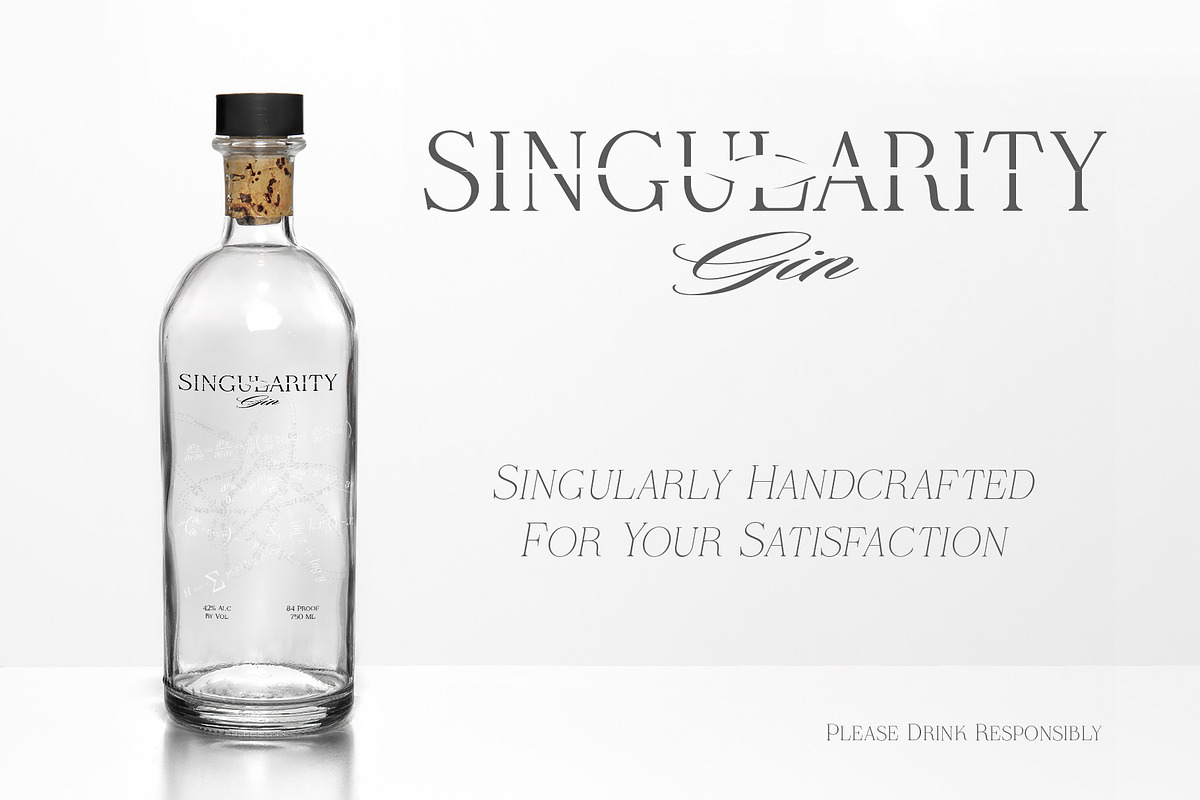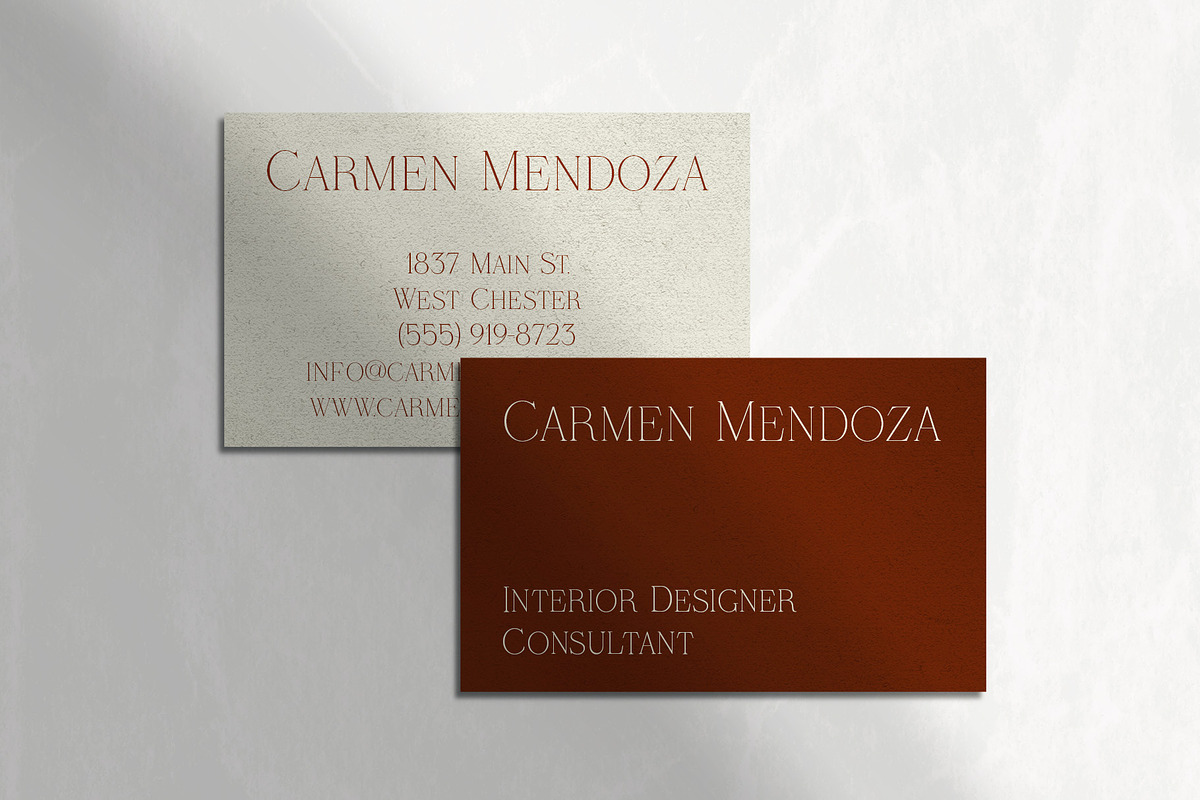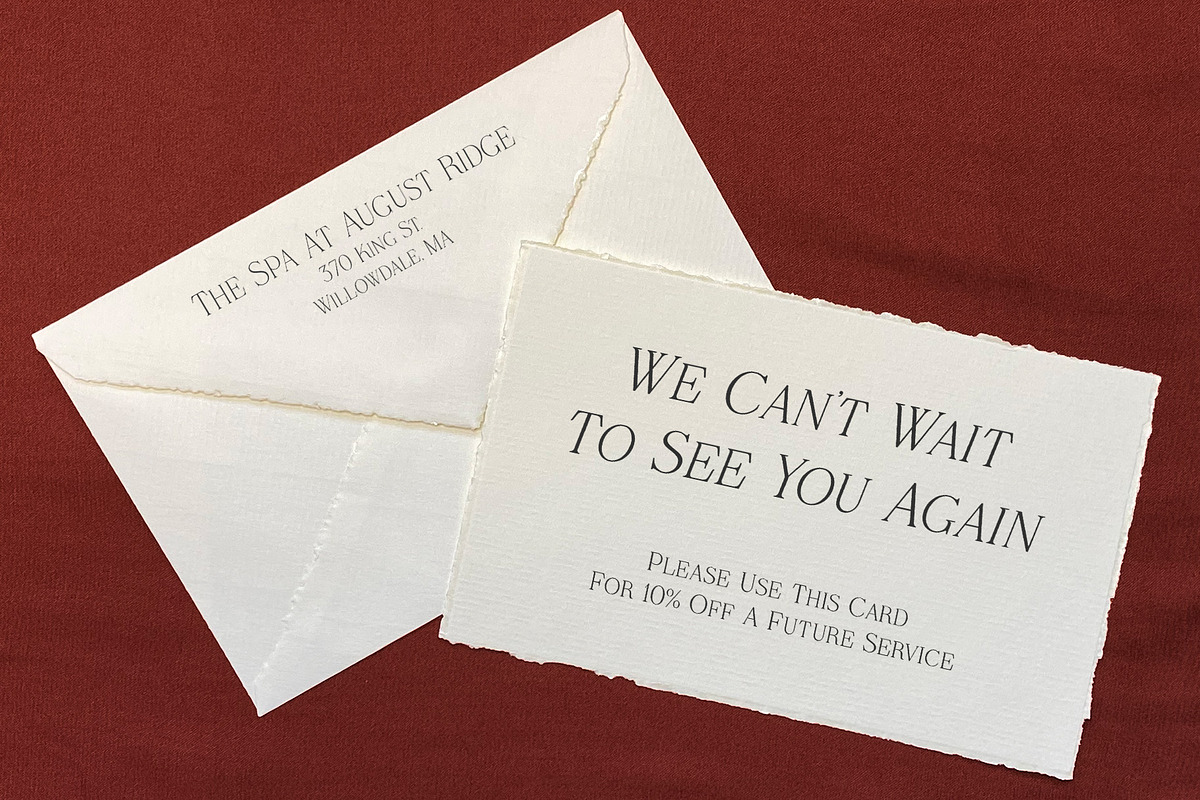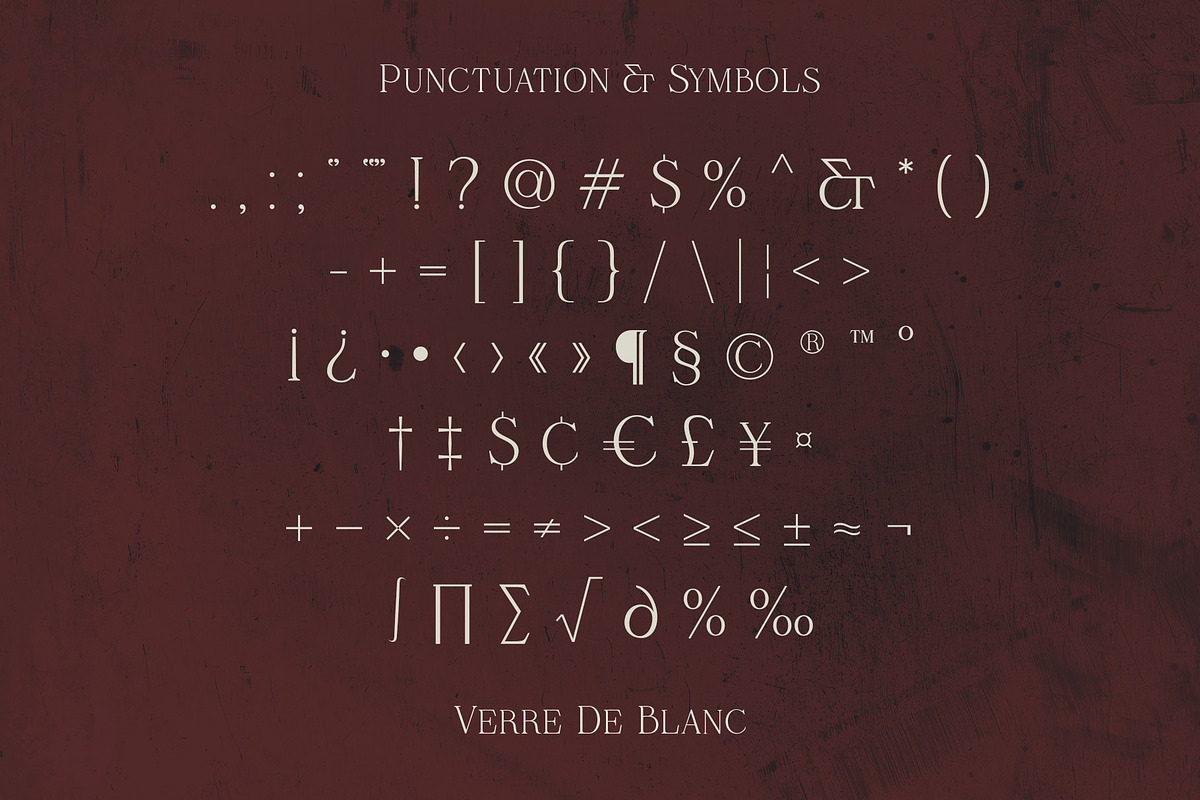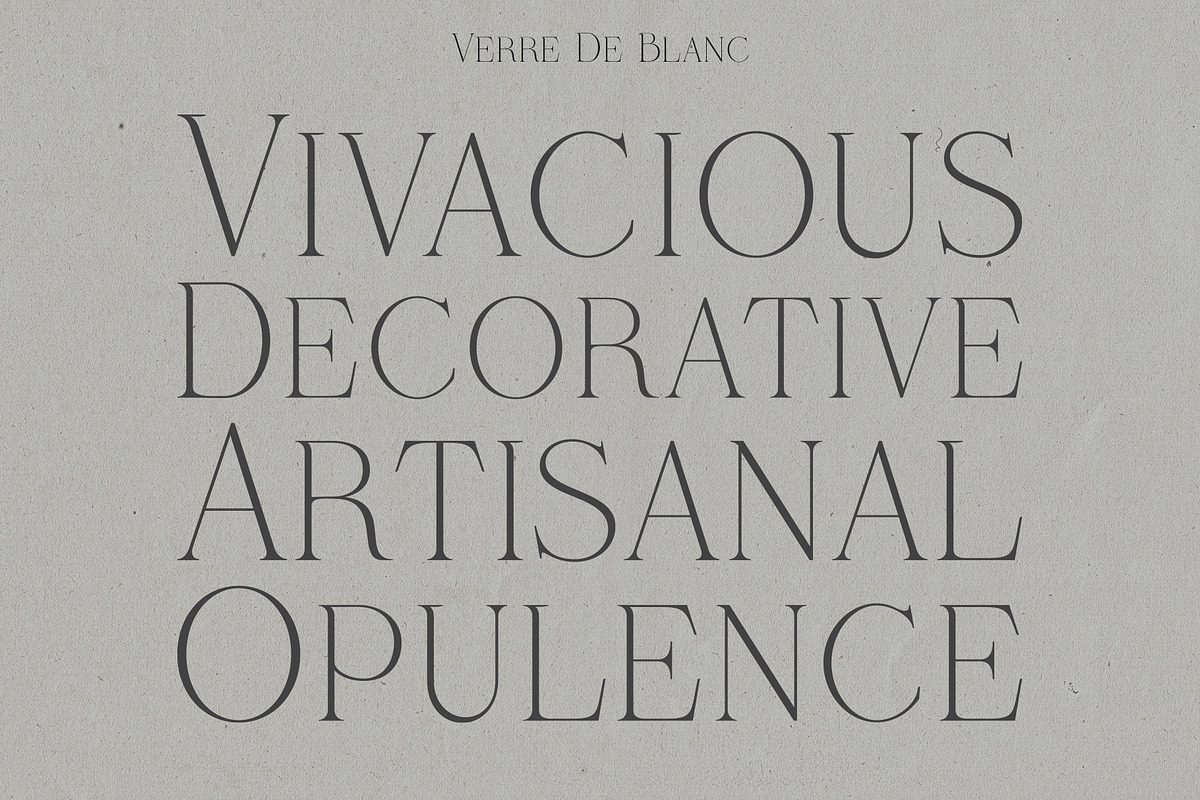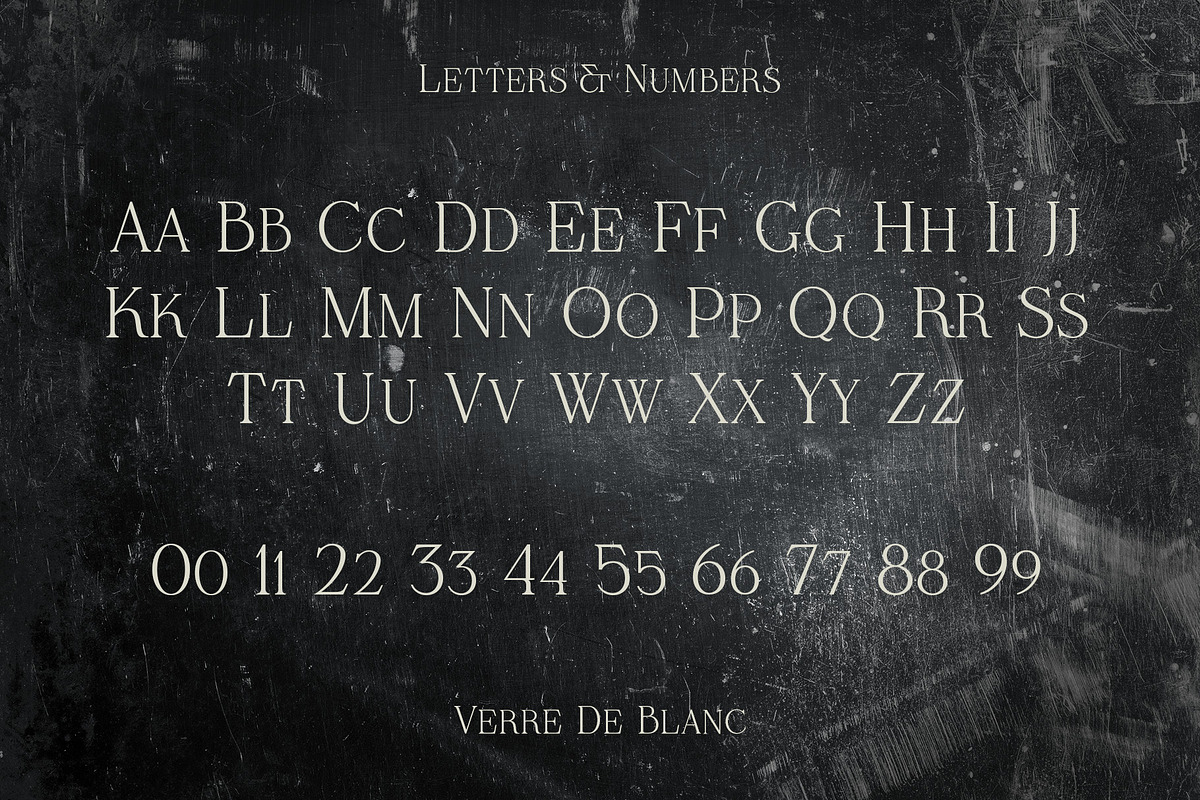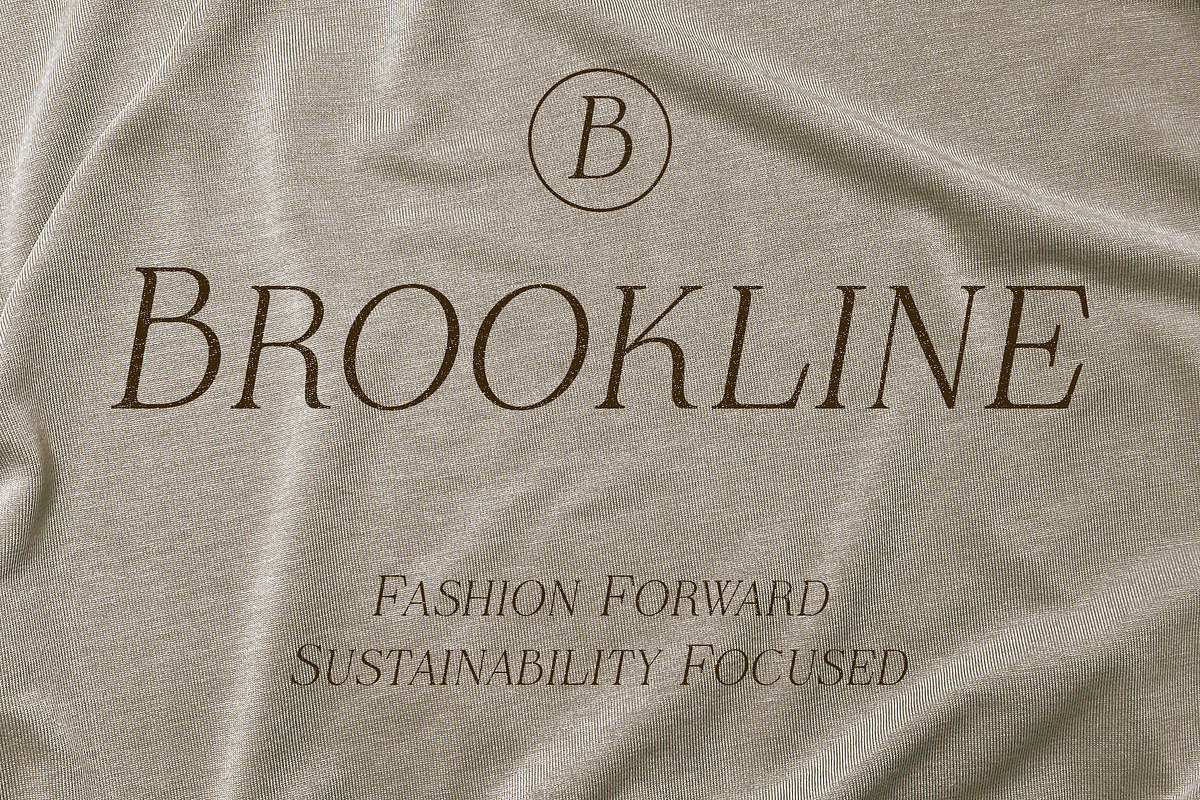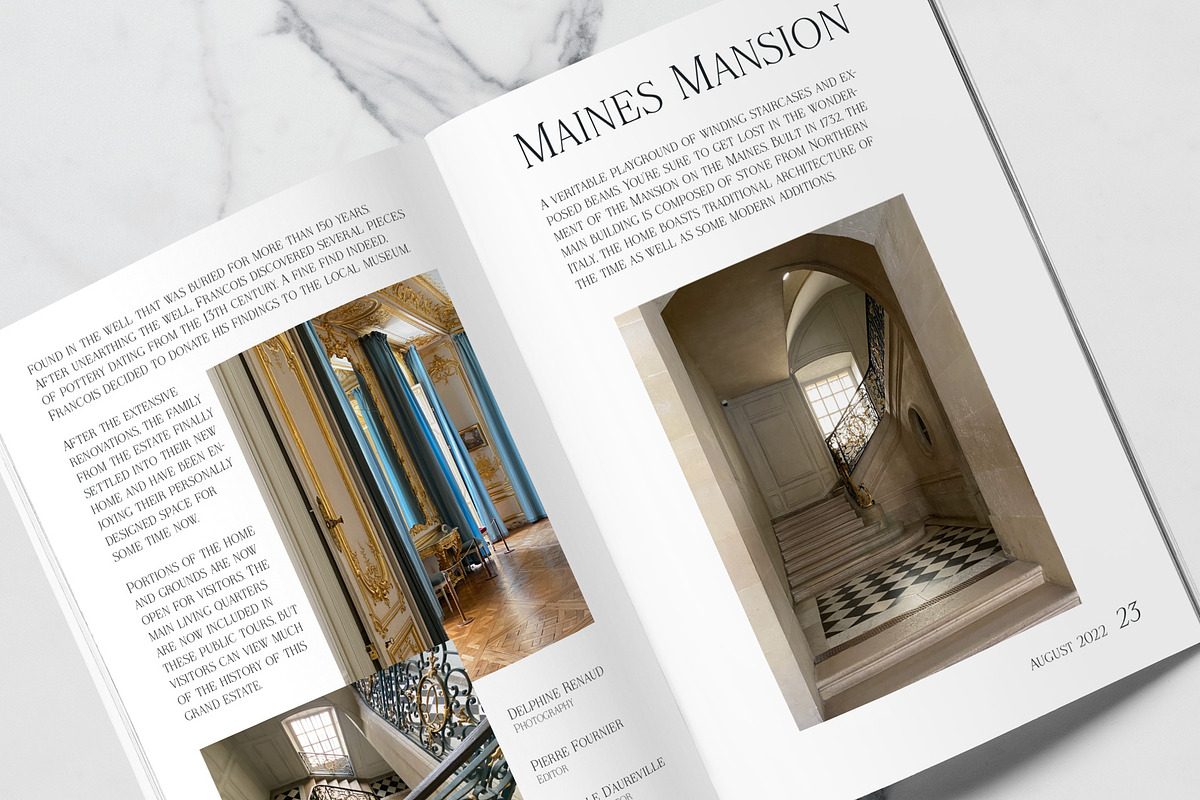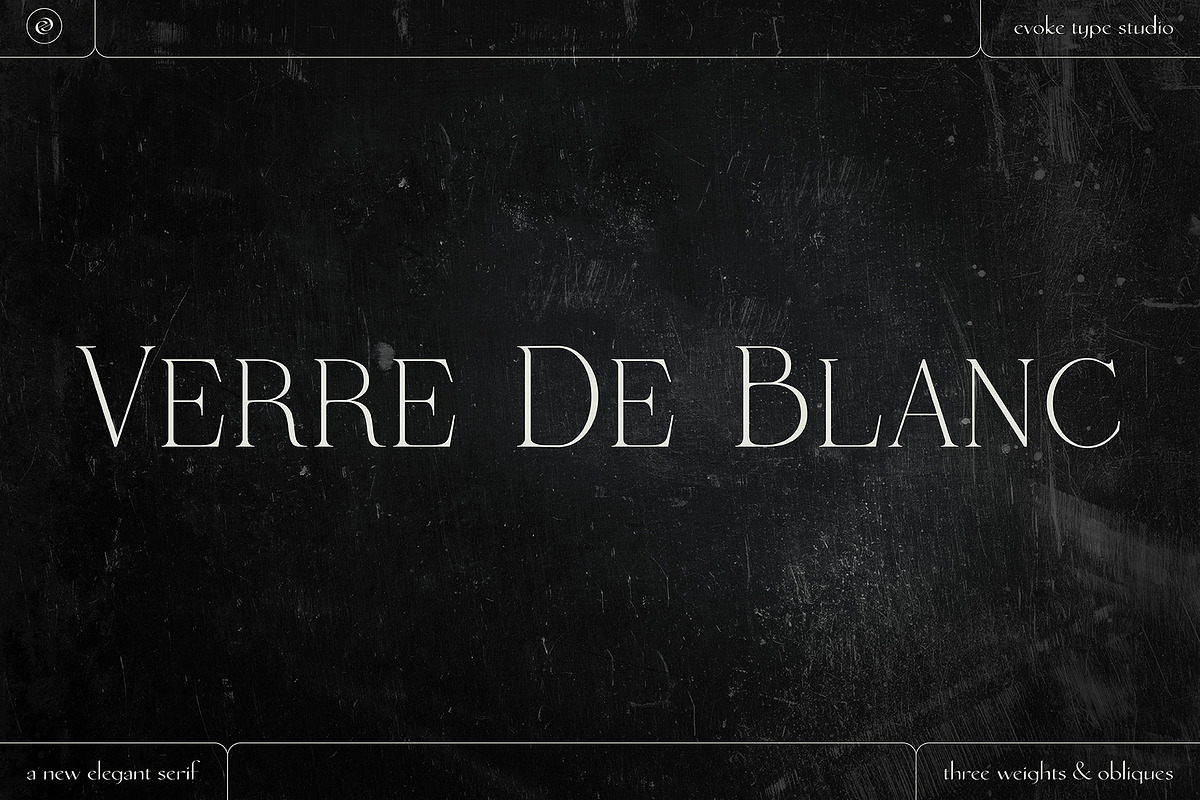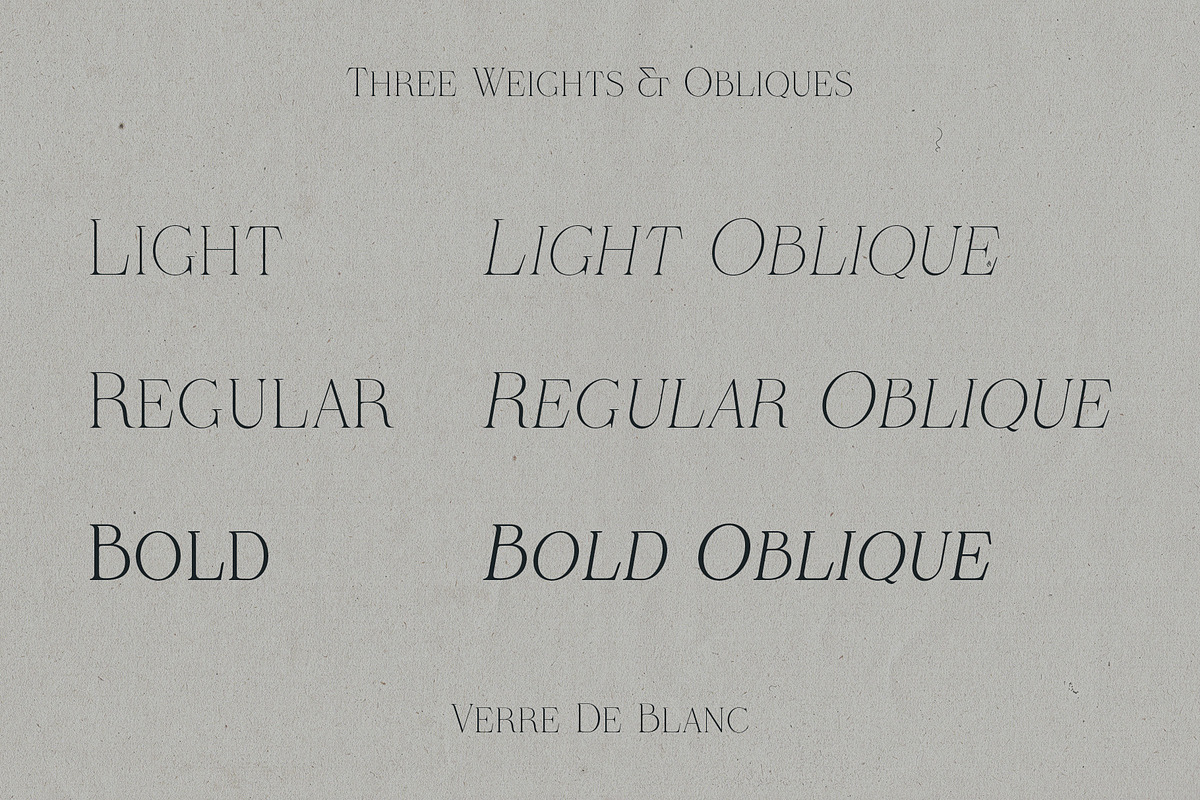
Verre De Blanc - An Elegant Serif
Verre De Blanc is a sophisticated typeface with a subtle elegance. This typeface is perfect when you're after that refined and polished look. With three weights and oblique versions of each, Verre De Blanc is a versatile font for your branding and advertisement needs.
Language support includes Western and Central European languages.